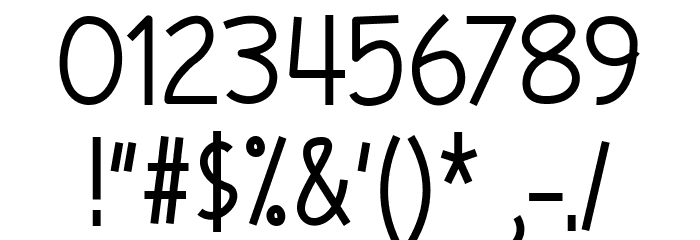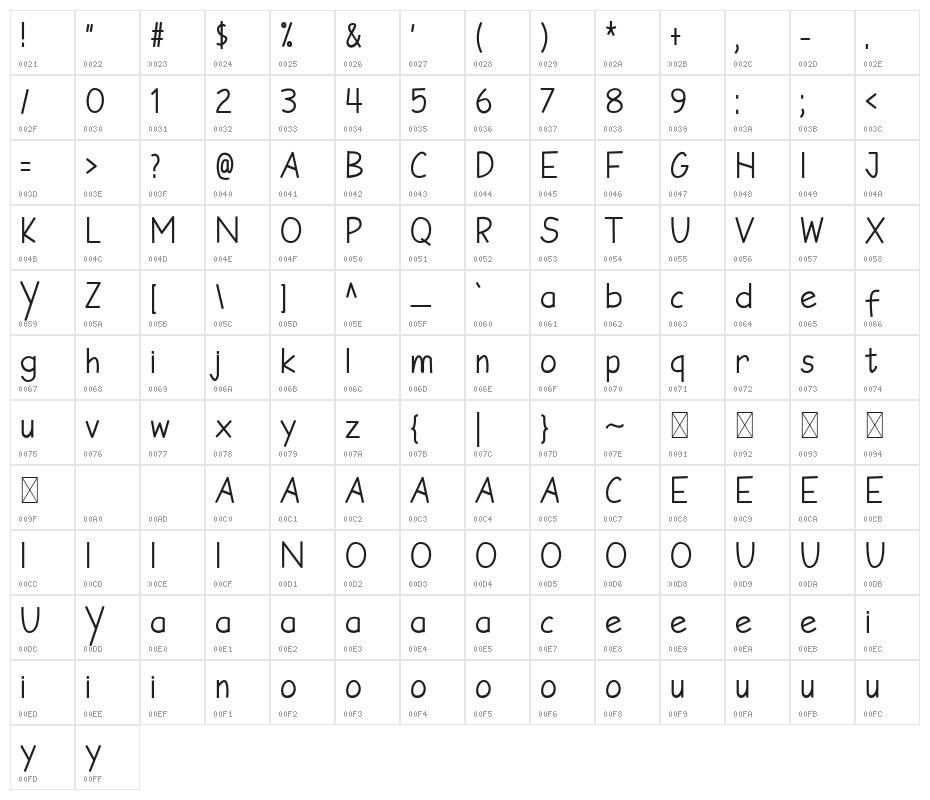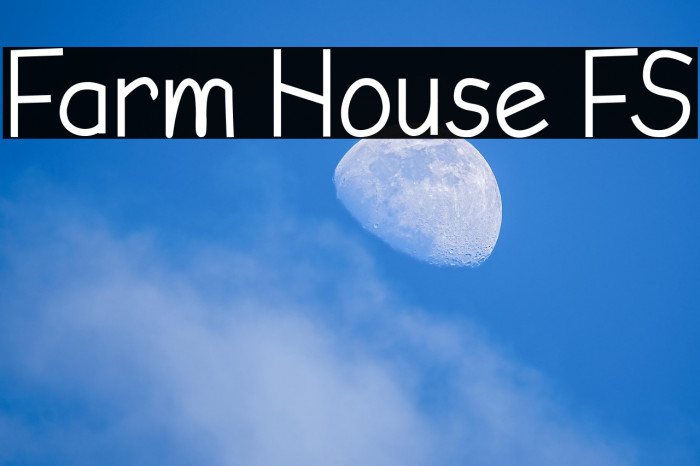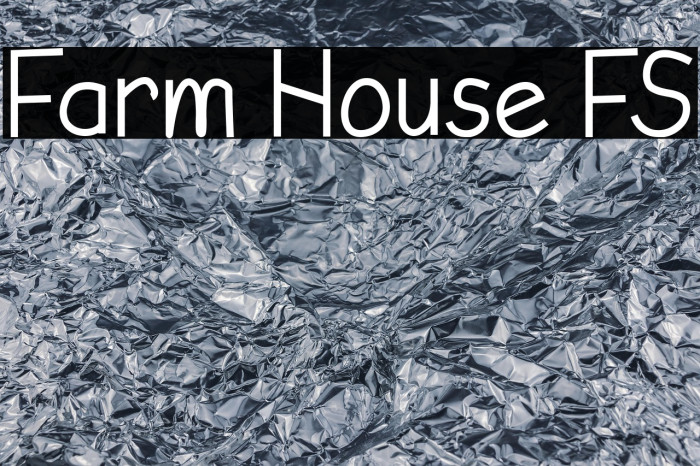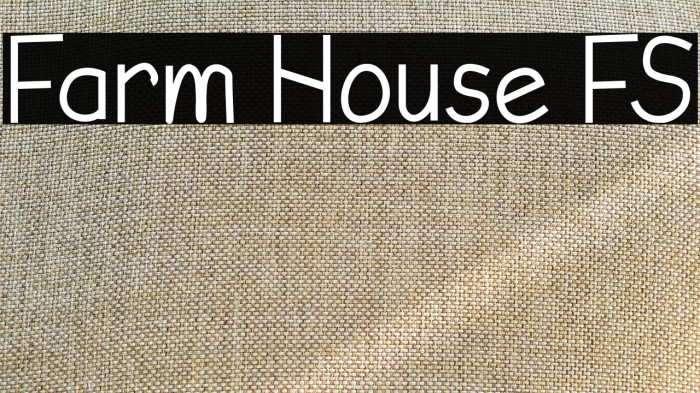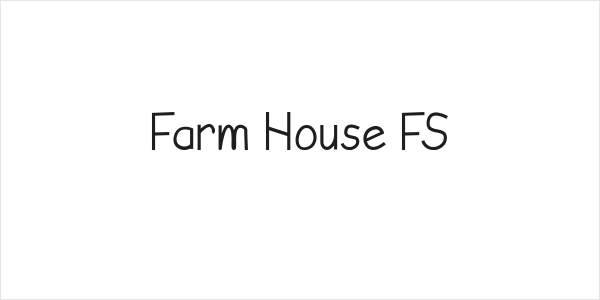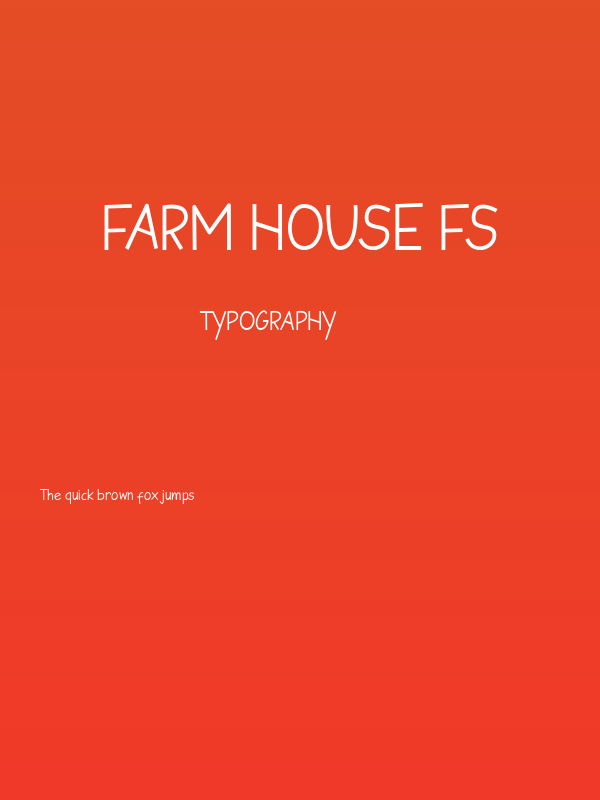
Farm House FS Font
Farm House FS Description
This font features a playful and casual style with a handwritten appearance. The characters are slightly irregular, giving it a friendly and approachable feel. The uppercase letters are tall and narrow, while the lowercase letters maintain a consistent height, creating a harmonious balance. The numerals are clear and easy to read, and the special characters are well-integrated into the overall design. This font's informal style makes it suitable for projects that require a personal touch.
Overall StyleCasual
Use CaseHeadlines, Informal text, Branding
Proposed ProjectsIdeal for greeting cards, children's books, casual branding, and social media graphics.